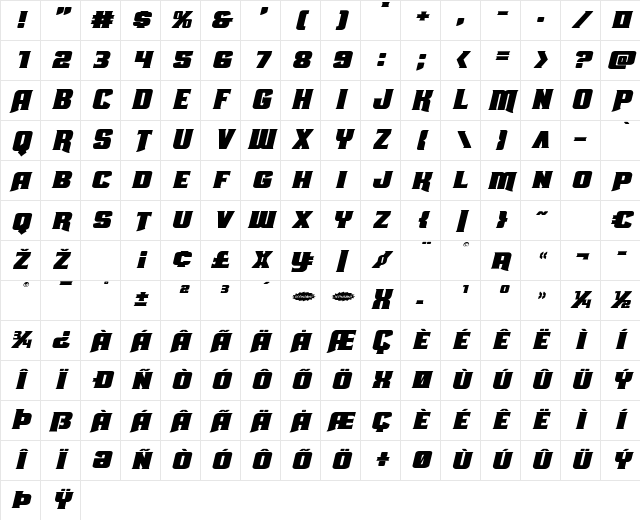
Union Gray Expanded Italic Expanded Italic
Style: Expanded Italic
Design Context for Union Gray Expanded Italic
Union Gray Expanded Italic is a composed and adaptable typeface that performs quietly and consistently across a wide range of design contexts. The slanted form adds forward momentum and visual energy.
Pro Tip: Use Union Gray Expanded Italic for emphasis, pull quotes, and subheadings where its slanted energy can add rhythm to the layout.